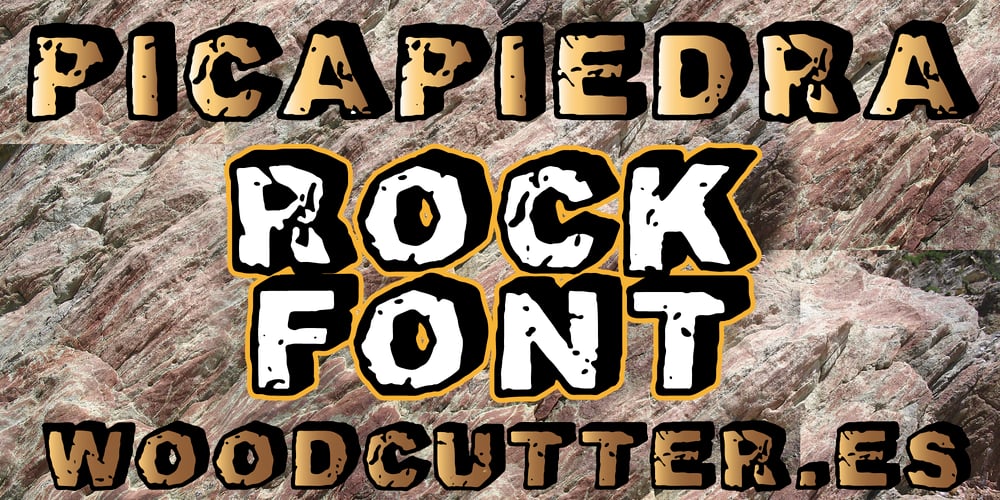
Picapiedra Font Family was designed by Jordi Manero and published by Woodcutter. Picapiedra contains 1 styles and family package options. “Picapiedra” is a typeface with the appearance of rock worn down by the erosion of time. Its solid and robust letters feature a rough texture and a shadow to the right, adding depth and character. Ideal for projects aiming to convey a sense of antiquity, strength, and durability. Perfect for titles on posters, book covers, and designs related to prehistoric or natural themes, “Picapiedra” offers an authentic and powerful look that will not go unnoticed. –Uppercase